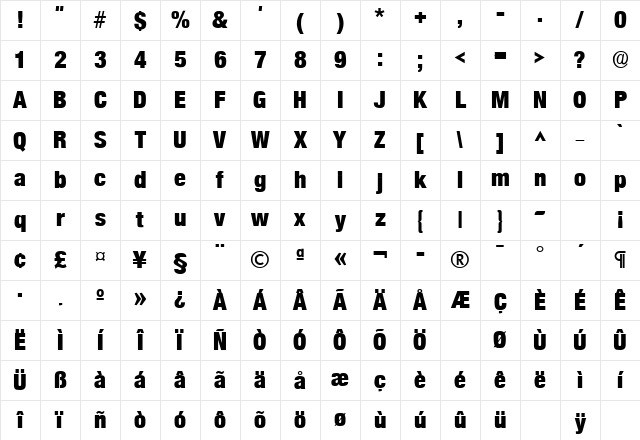
Basic Sans Heavy SF Bold Free Font
Basic Sans Heavy SF Bold
Basic Sans Heavy SF Family
Complete Basic Sans Heavy SF Bold glyph index. Displaying only characters natively supported by Basic Sans Heavy SF Bold font.
Design Context for Basic Sans Heavy SF
Basic Sans Heavy SF is a composed and adaptable typeface that performs quietly and consistently across a wide range of design contexts. Its bold stroke weight gives it real presence on the page.